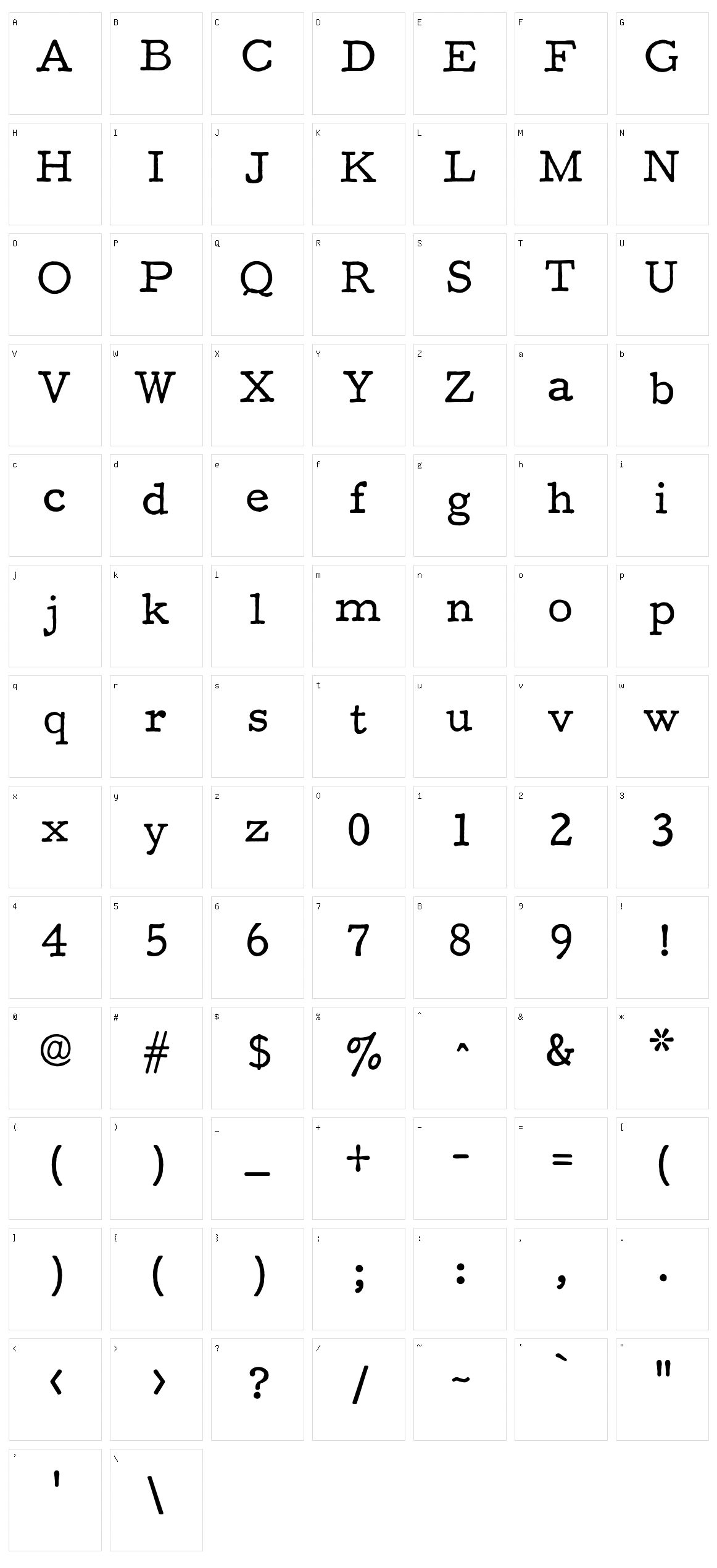
The free font F25 Executive is carefully designed by Volker Busse - F25 Digital Typeface Design, showcasing a thoughtful balance of creativity and usability and falls under the Typewriter font style. When you download the ZIP file, it contains only 43.99 KB of font files, making it lightweight and quick to download. Please review the license details below to understand permitted usage and distribution rights. If license information is not available, we recommend using this font for personal projects only or contacting the author directly for commercial usage permissions.